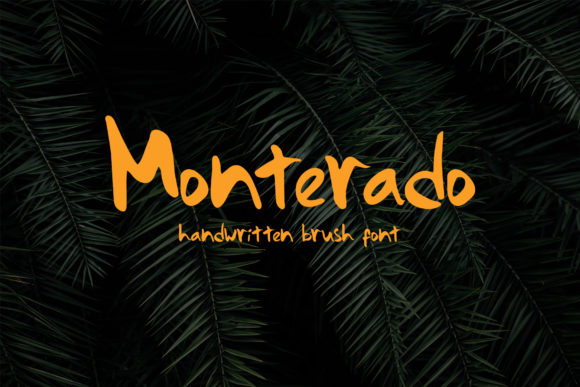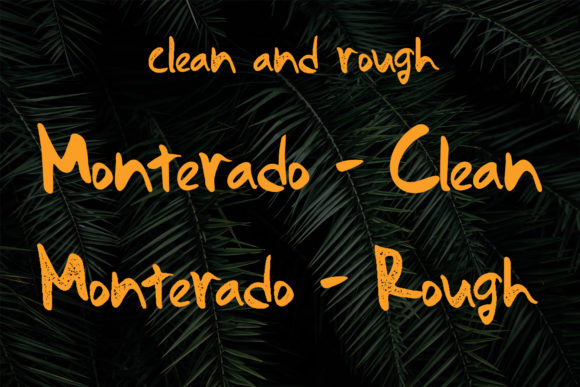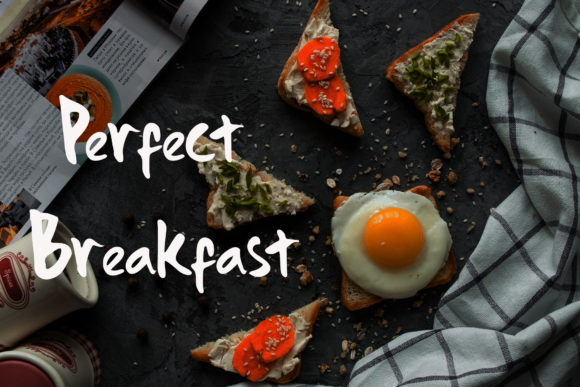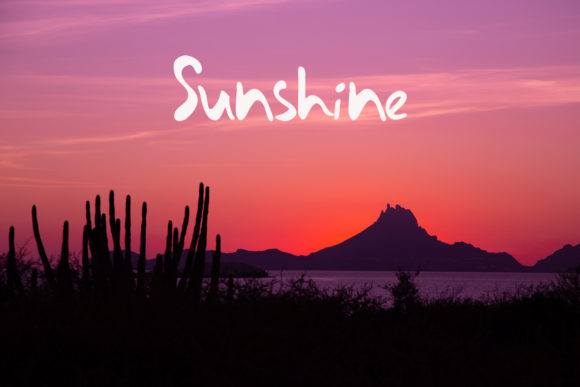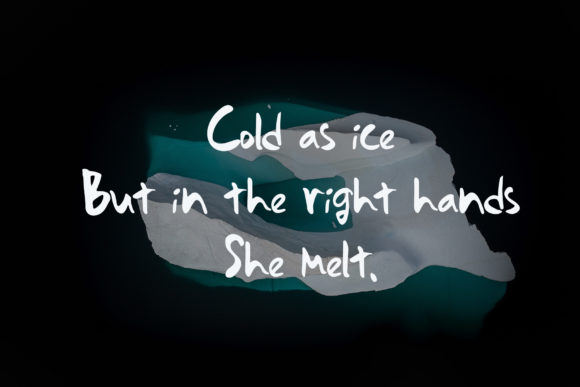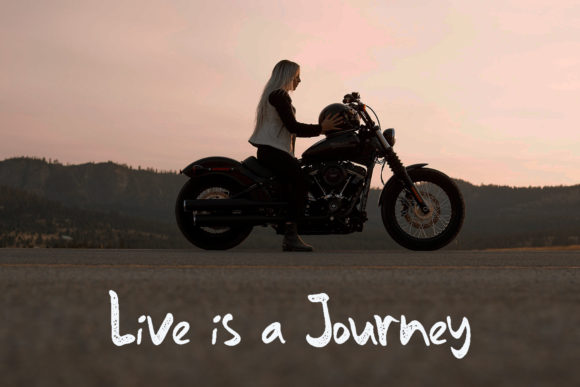
Monterado Font
About Monterado Font
Monterado is a raw, authentic brush font that blends traditional influences into a contemporary aesthetic. Its well balanced Latin details contain distinctive contrasts. Use Monterado to achieve an exquisite, yet subtle look and maximum versatility.